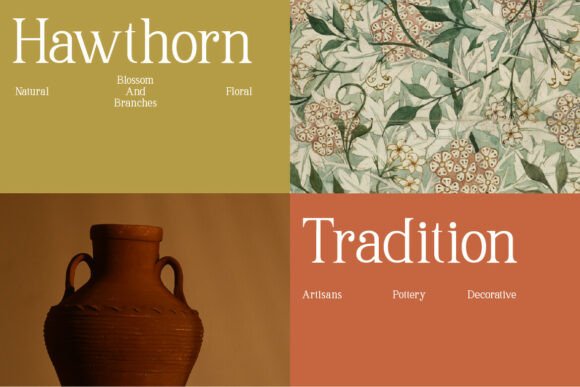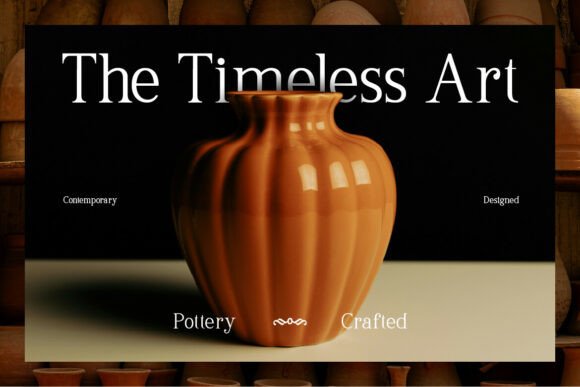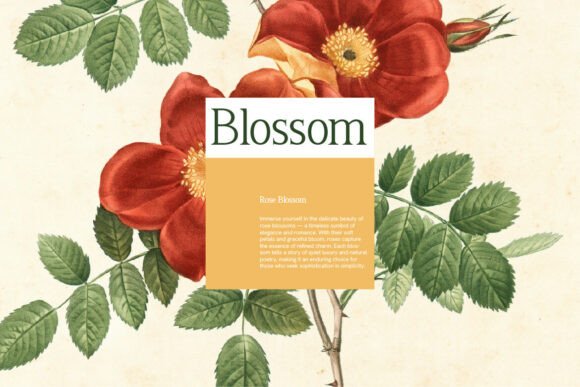
Introduction to Freglia Bloom Font
Freglia Bloom is a vintage-inspired serif font that captures the charm of classic interiors and handcrafted elegance.
With refined curves and ornamental details, it’s ideal for packaging, botanical branding, antique labels, and editorial spreads The font evokes a timeless aesthetic rooted in artisanal tradition, making it a perfect fit for home decor products, elegant stationery, and boutique branding.